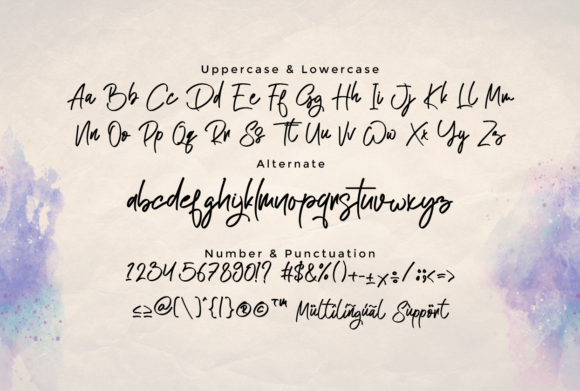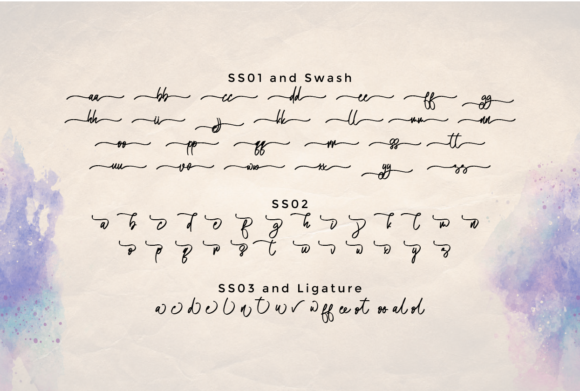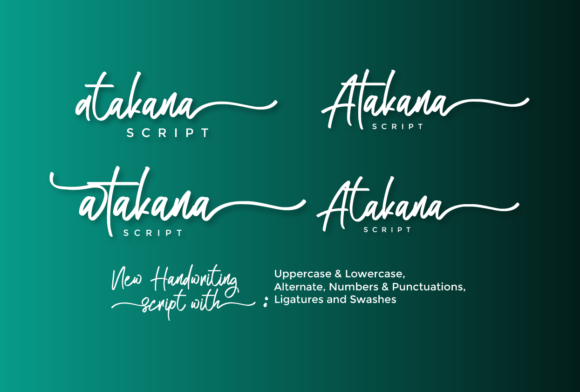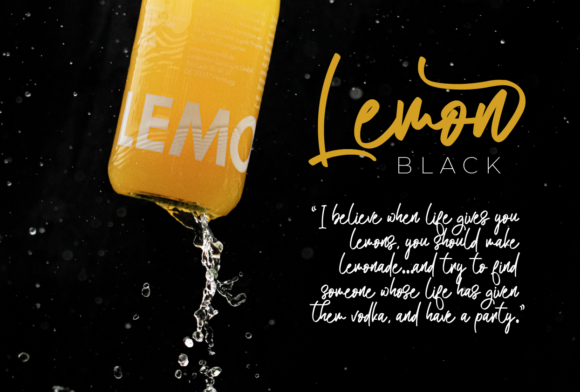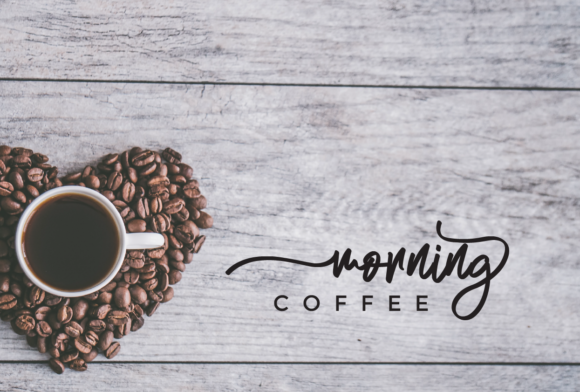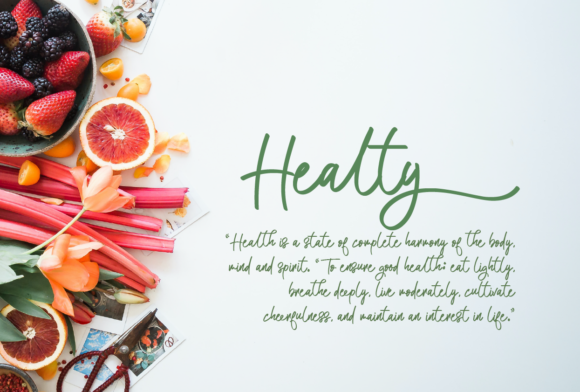
Unlock the Beauty of Handwritten Perfection with Atakana Script Font
Have you ever sat with a blank sheet of paper, waiting for inspiration to strike? Maybe it’s the hum of the coffee machine, the soft glow of your desk lamp, or the gentle rustle of your favorite pen that gets the creative juices flowing. Whatever sparks your imagination, it’s moments like these that remind us why we love design.
Atakana Script Font is here to elevate your designs to new heights. This delicate, elegant script font is crafted to bring a touch of refinement to your work. Whether you’re creating a wedding invitation, a logo, or a marketing brochure, Atakana Script Font adds a level of sophistication that’s hard to resist.
With its PUA encoding, accessing the full range of glyphs and swashes is a breeze, giving you complete control over the look and feel of your design. Whether you’re a seasoned pro or just starting out, Atakana Script Font is a valuable addition to your design toolkit.
Atakana Script Font Key Features
- Font Style: Script font with a unique, hand-written feel.
- Unique Characteristics: Features a distinctive, flowing script style with subtle variations in letterforms, giving it a personal and elegant touch.
Atakana Script Font Review
At first glance, I was captivated by the elegant and cursive lines of Atakana Script Font. ✨ The overall feel is refined, sophisticated, and perfect for creating a sense of luxury and high-end appeal in any design project. I love how it adds a touch of whimsy and playfulness to the text without going overboard. The subtle flair at the ends of the letters is a nice touch, adding a sense of movement and fluidity.
However, I do have some concerns about the limitations of Atakana Script Font. ⚠️ The font may not be suitable for projects that require a lot of bold or italic text, as the script style can become cluttered and difficult to read. Additionally, the font may not be the best choice for body text, as it can be a bit too ornate and distracting.
Overall, I think Atakana Script Font is a great choice for projects that require a touch of elegance and sophistication. While it may have some limitations, it’s a versatile and highly customizable font that can add a unique touch to any design. With careful consideration of the font’s limitations, I think it can be a valuable addition to any designer’s toolkit.
Use the Atakana Script font for titles, headings, and other decorative text elements to add a touch of elegance to your designs. Experiment with different font sizes, colors, and combinations to find the perfect look for your project.
The Atakana Script font is ideal for:
- Fashion